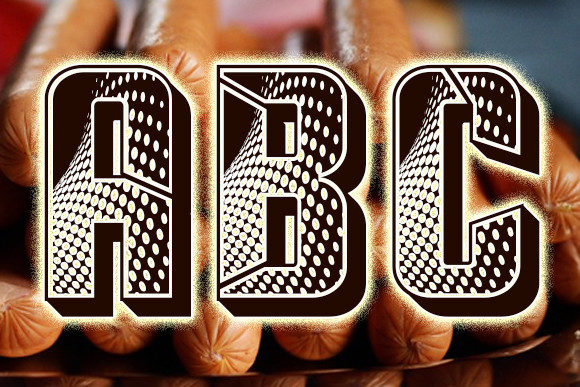
Introduction to Sausage Master Font
Sausage Master is an awesome and thick lettered decorative font.
It is perfect for any branding project such as logos, t-shirt printing, creative products, or pretty much anything that could benefit from a futuristic vibe .
Why Choose Sausage Master Font?